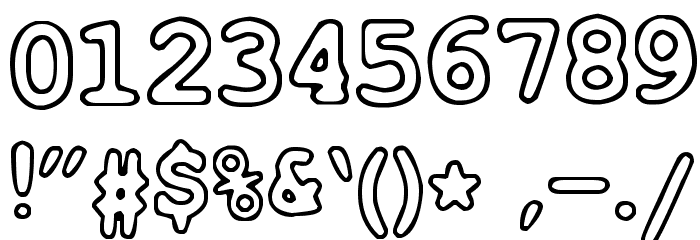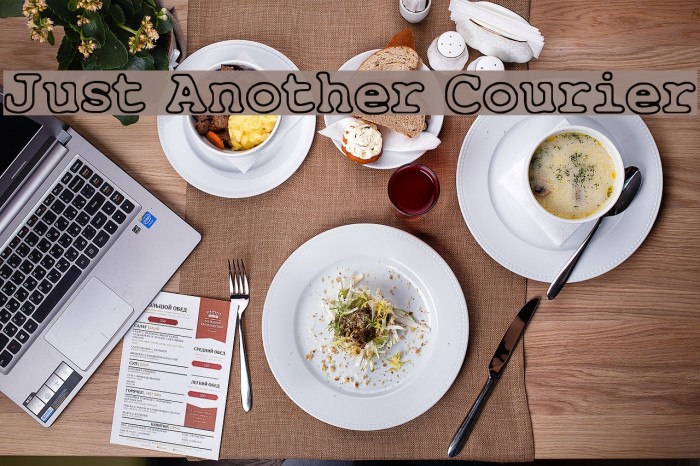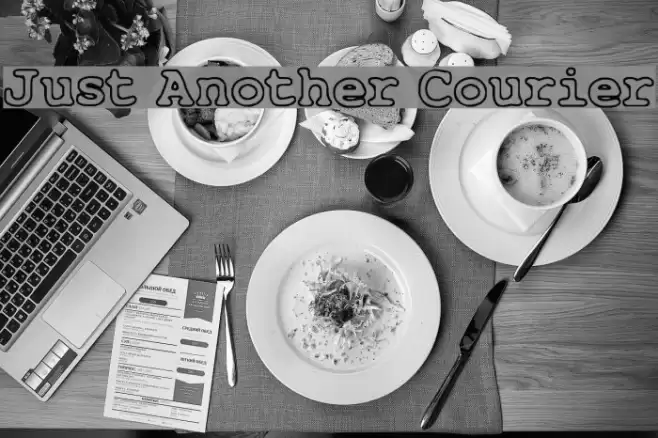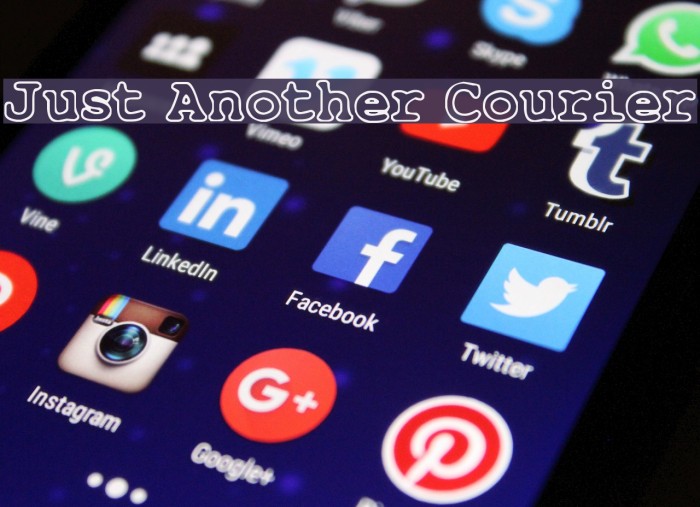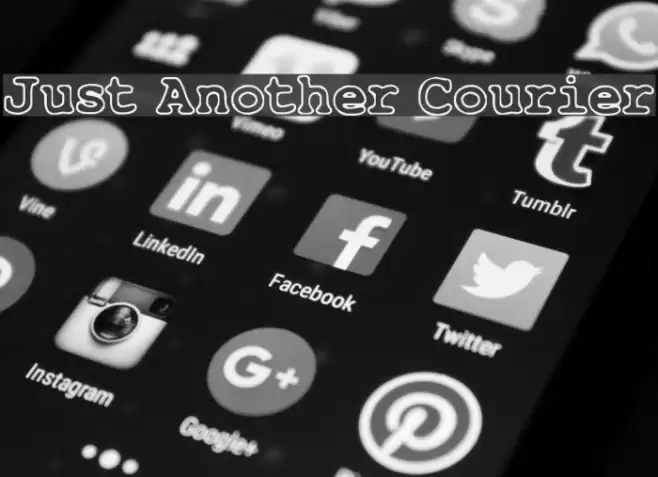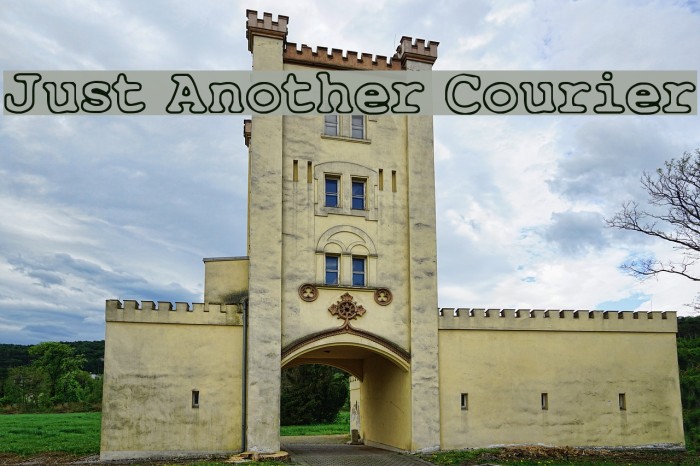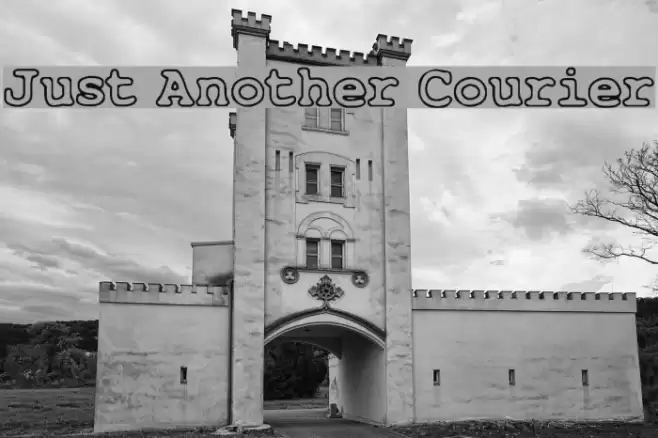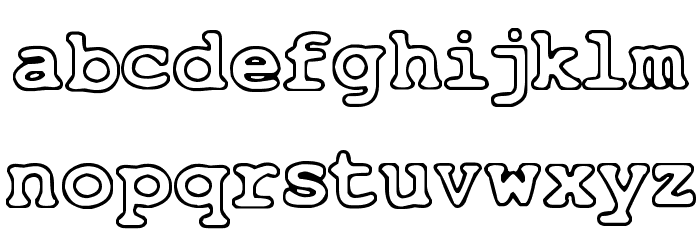
Just Another Courier Font
Just Another Courier Description
This font features a playful and bold outline style, characterized by its thick, uniform strokes and rounded edges. The letters are uppercase and lowercase, with a consistent width that gives a balanced appearance. The numbers and special characters maintain the same playful outline, making them easily recognizable and visually appealing. The overall design is reminiscent of a cartoon or comic style, which adds a sense of fun and creativity to any project. The font's boldness ensures readability while the outlined nature provides a unique aesthetic that stands out.
Overall StylePlayful, Cartoon
Use CaseHeadlines, Logos, Posters
Proposed ProjectsIdeal for children's books, comic strips, playful branding, and creative posters.